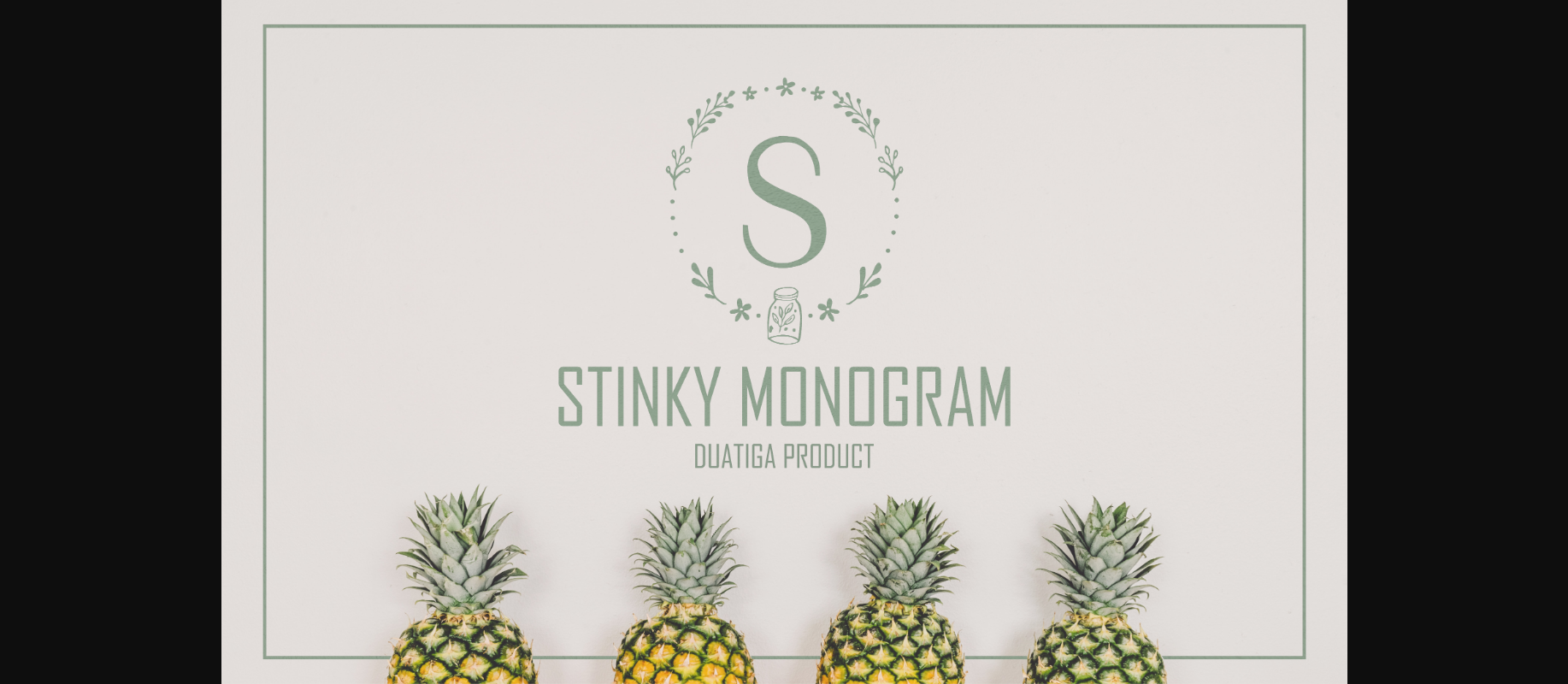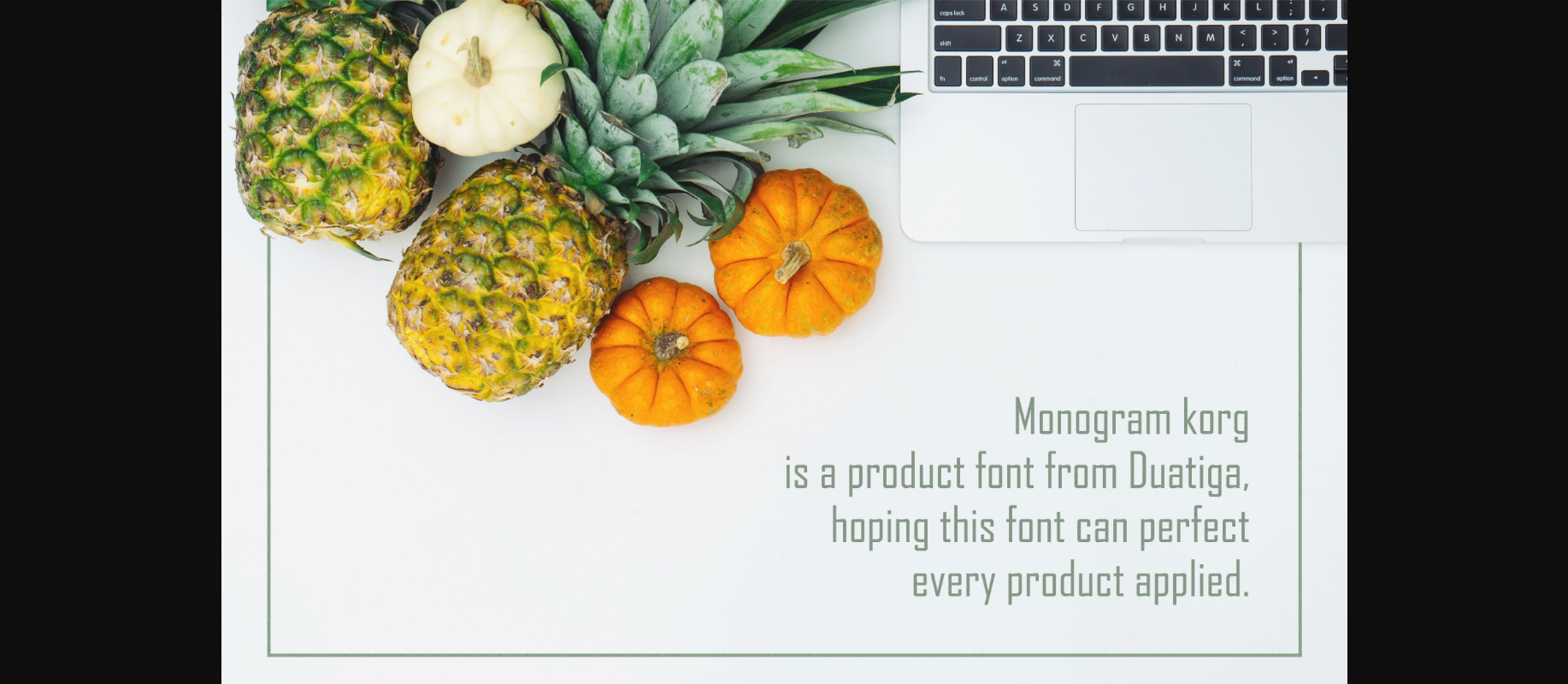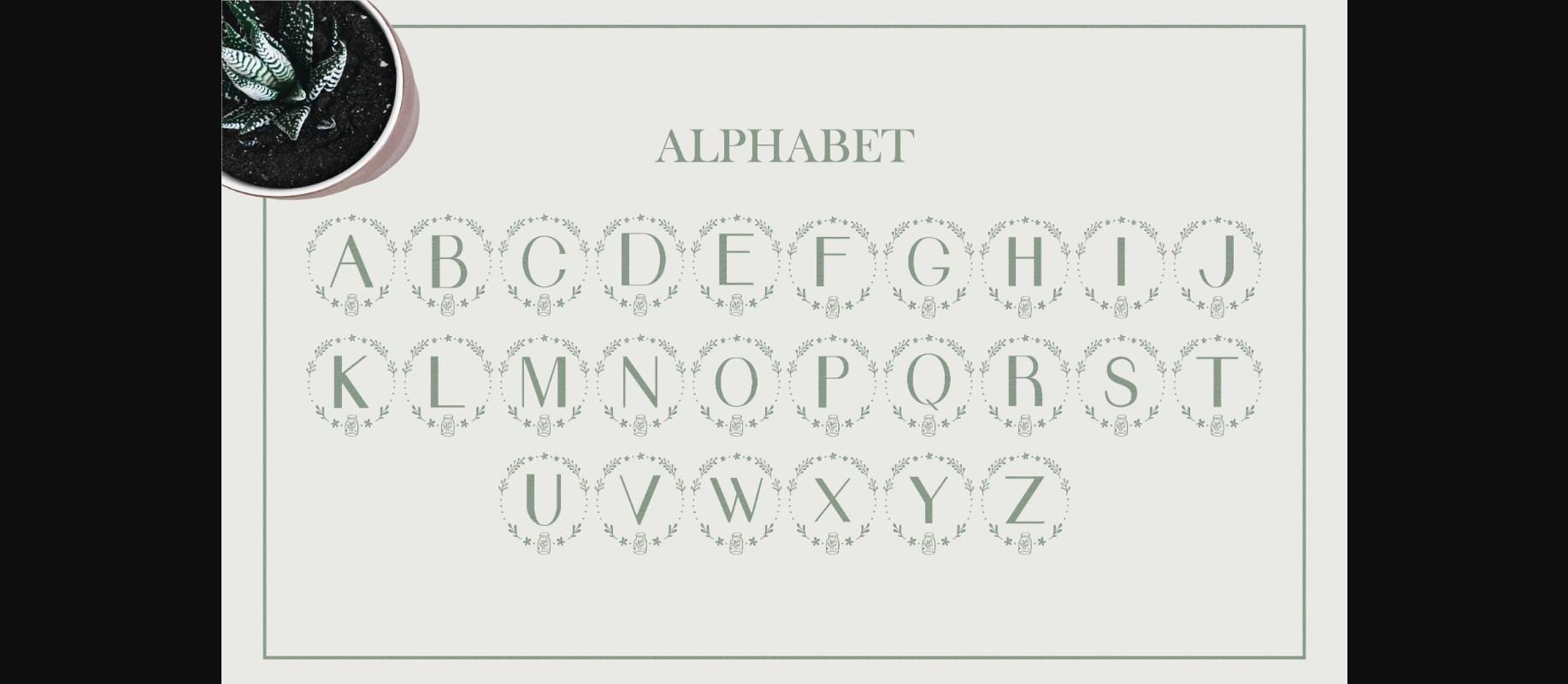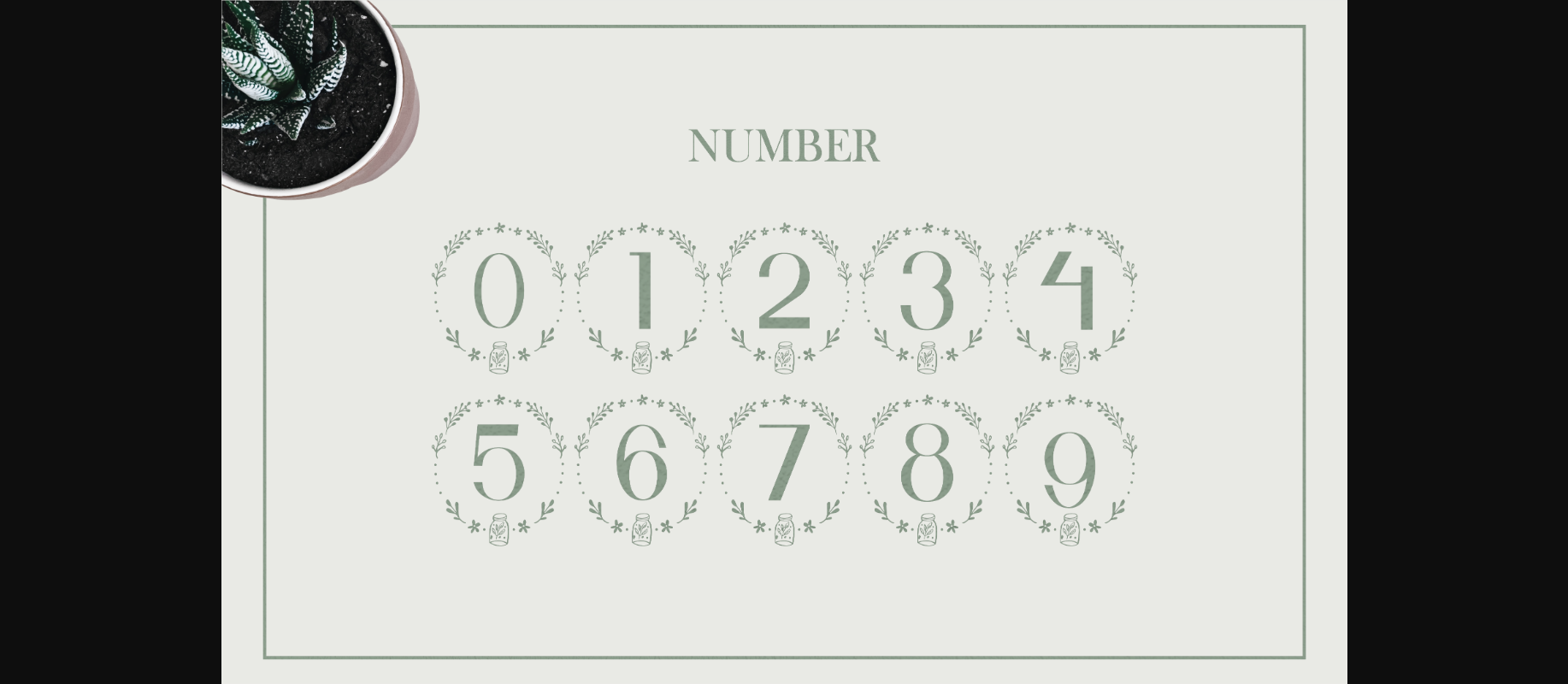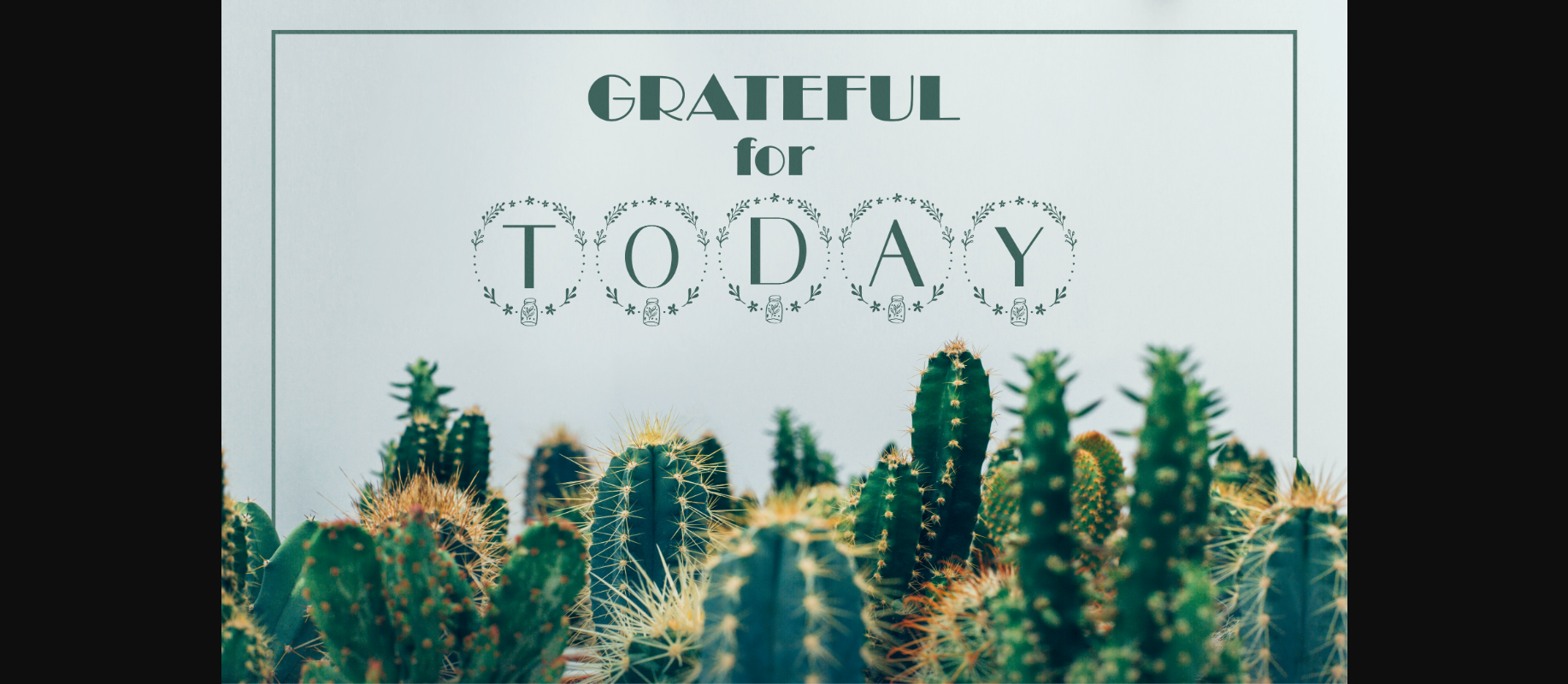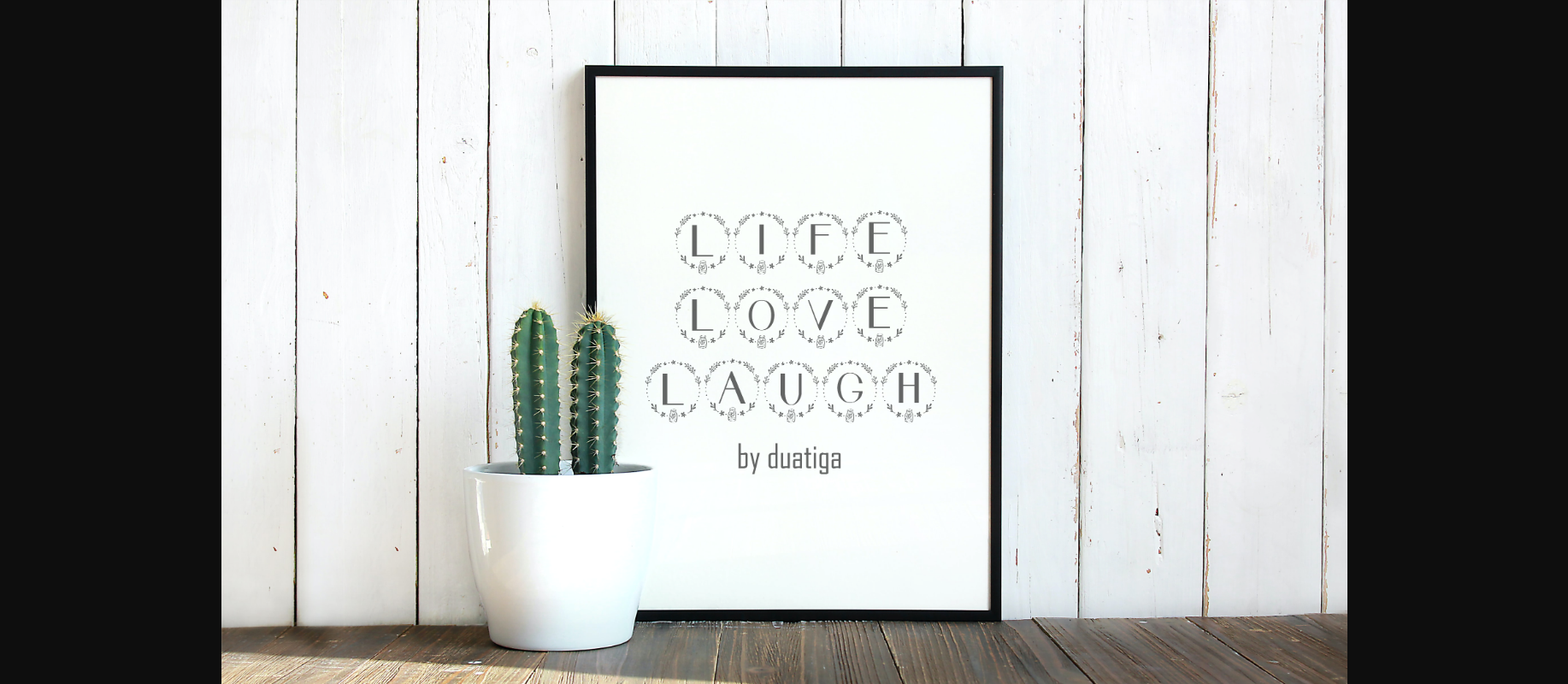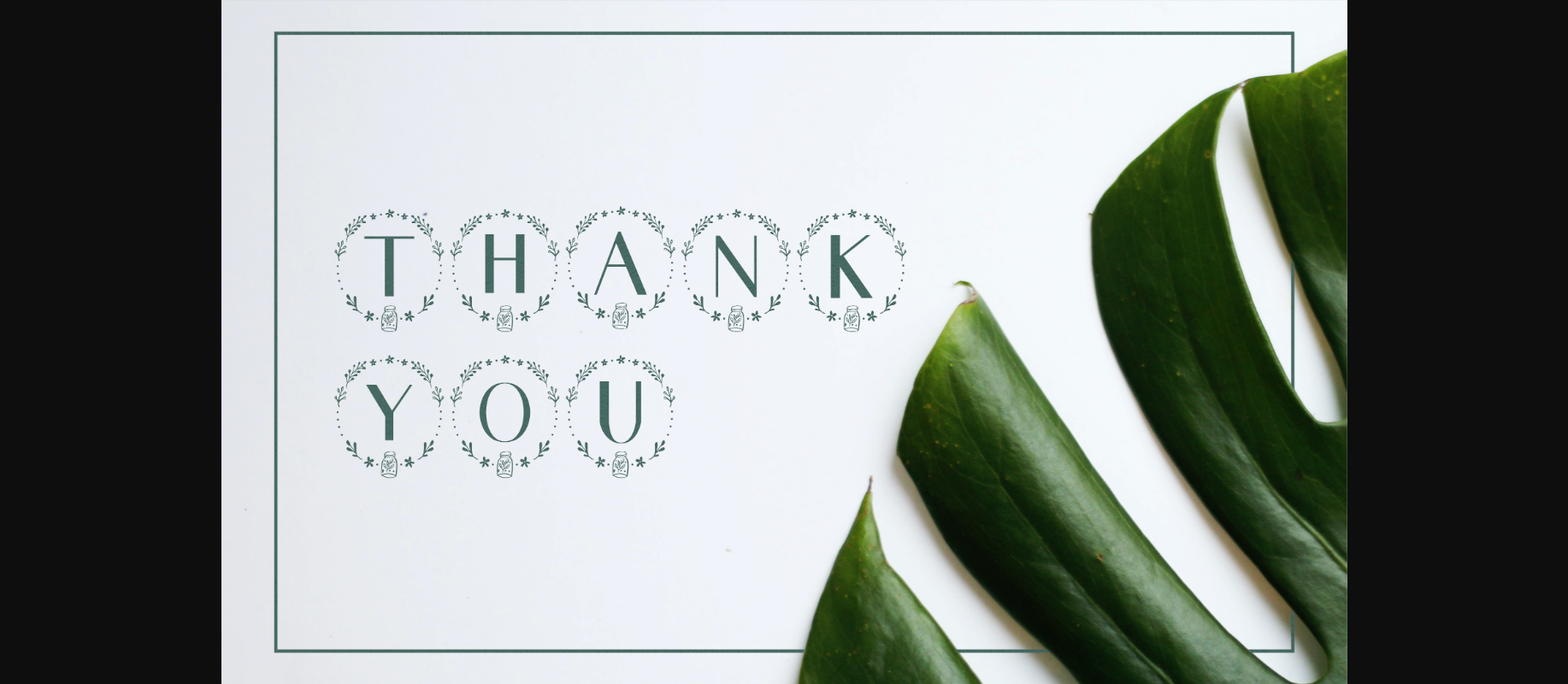
Stinky is a beautiful and unique decorative font. Add this lovely looking font to each of your love letters, wedding invitations or favorite design ideas, and you will be astounded by the outcome.